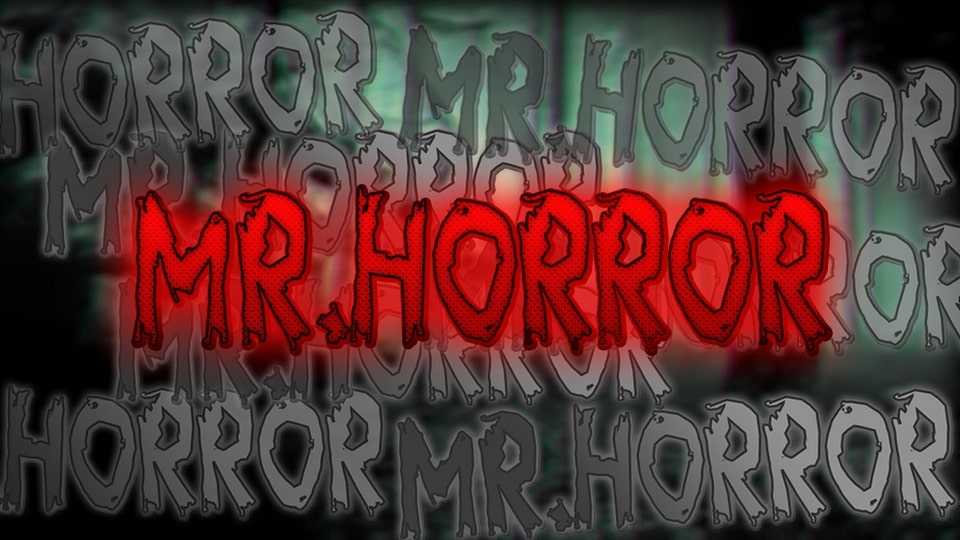
Download MrHorror font, a rough and textured hand lettered typeface. It’s perfect for Halloween designs, game titles, movie posters, apparel designs, album artwork, or anything horror-themed.